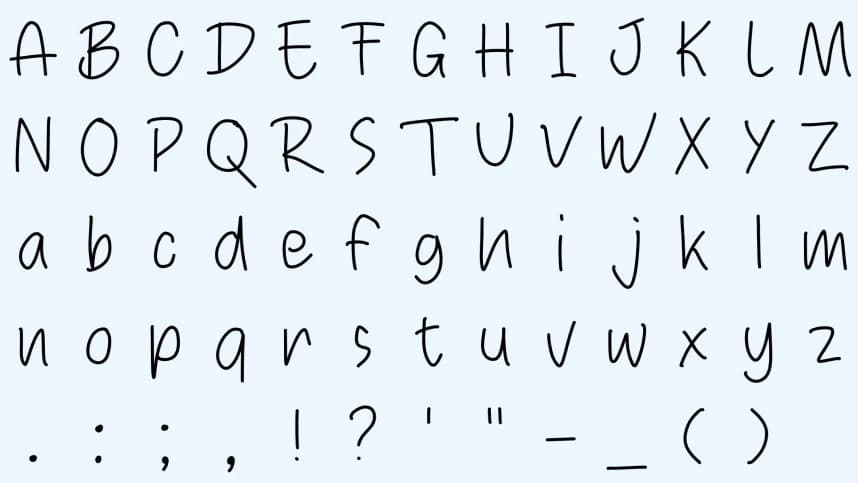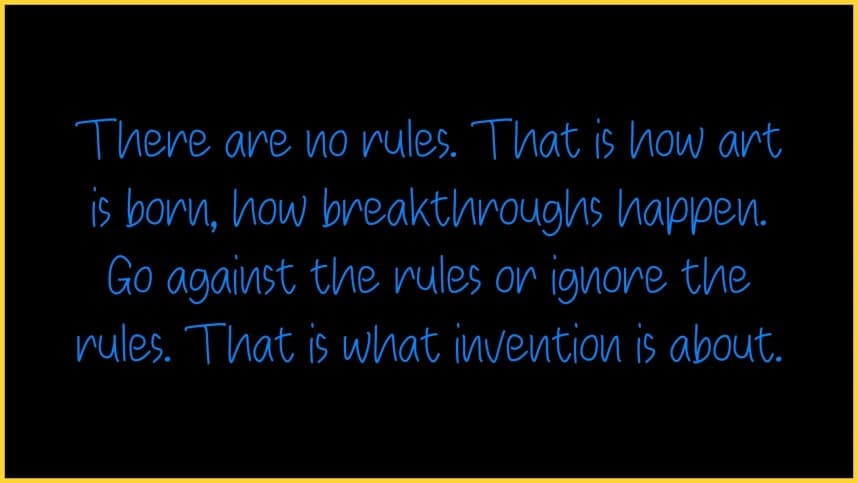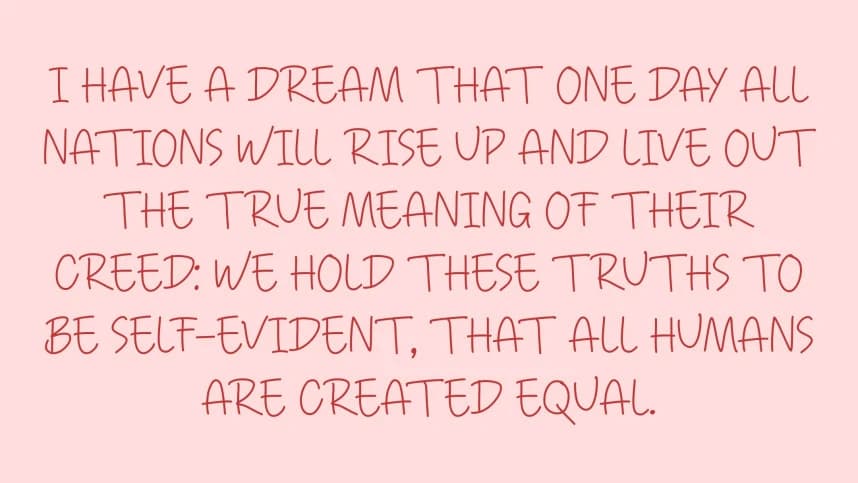
Perfect Light Font
Perfect Light Font is a delicate handwritten font with a clean and elegant minimalist style. Featuring thin, flowing strokes and naturally spaced letterforms, the font creates a soft, airy, and personal feel.